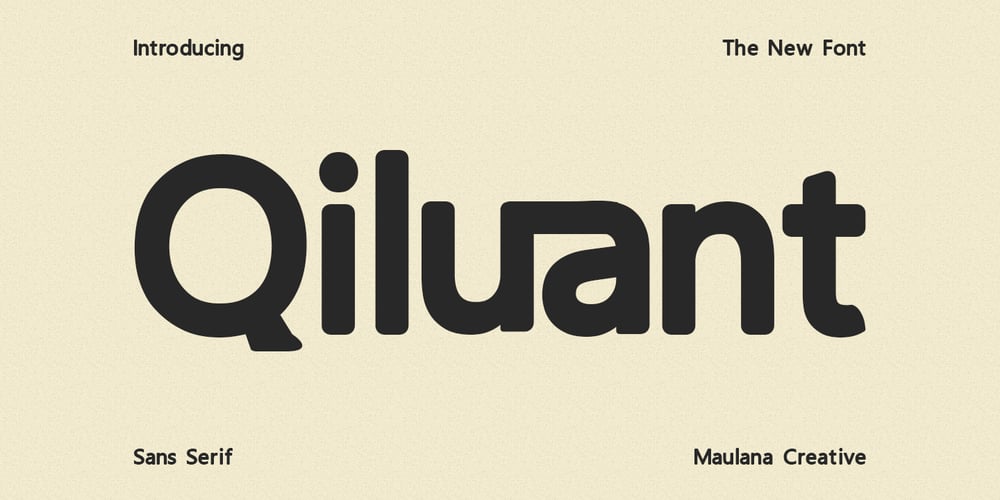
MC Qiluant
MC Qiluant font
MC Qiluant Font Family was designed by Gilang Maulana and published by Maulana Creative. MC Qiluant contains 1 styles and family package options. Qiluant is a sans display font. With bold tall and rounded stroke, fun character with a bit of ligatures and alternates. To give you an extra creative work. Qiluant font support multilingual more than 100+ language. This font is good for logo design, Social media, Movie Titles, Books Titles, a short text even a long text letter and good for your secondary text font with sans or serif. Make a stunning work with Qiluant font.